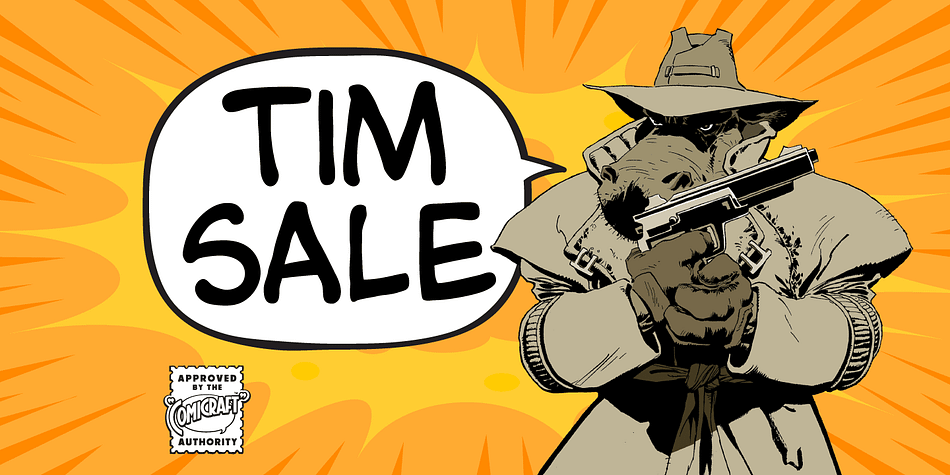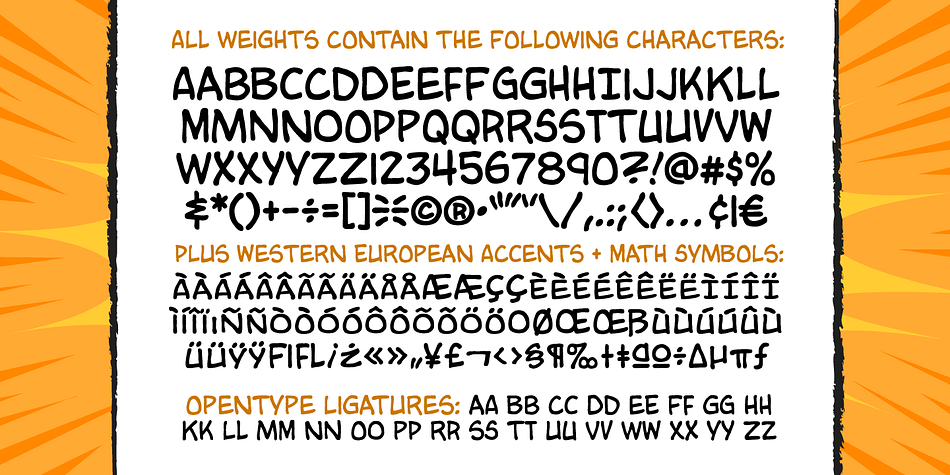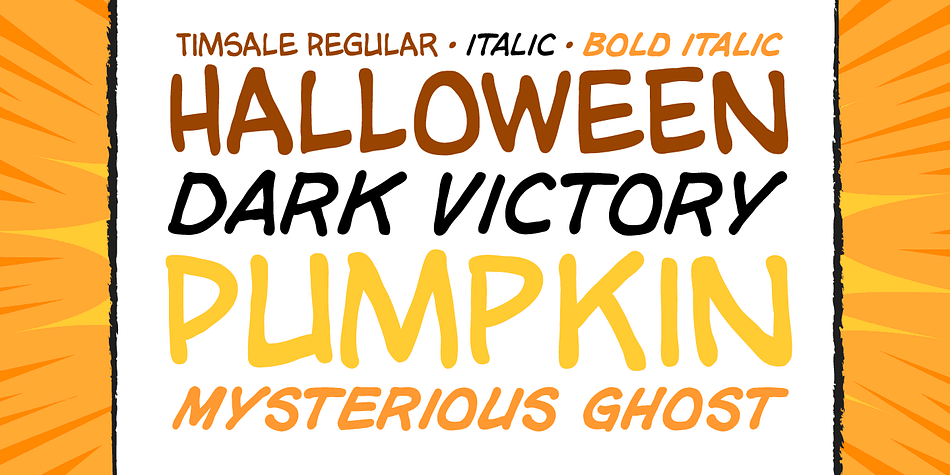
Designed by John Roshell and Tim Sale, Tim Sale is a comic and hand display font family. This typeface has three styles and was published by Comicraft.
If you’re familiar with the work of Eisner Award winning artist Tim Sale, you’ll also be familiar with the soft curves and hard edges of the characters he brings so vividly to life in the pages of GRENDEL, BATMAN and SUPERMAN. Now you can get to know a selection of the characters Tim has been working on his whole life, and Comicraft has been kind enough to arrange them in alphabetical order for you!
Based on Tim’s own hand lettering work in the lost Dark Horse classic, BILLI 99, the Tim Sale font brings together the class and finesse of Hunter Rose, the elegance and charm of Bruce Wayne and the honesty and trustworthiness of Clark Kent. Don’t go into the big city alone at night without it.